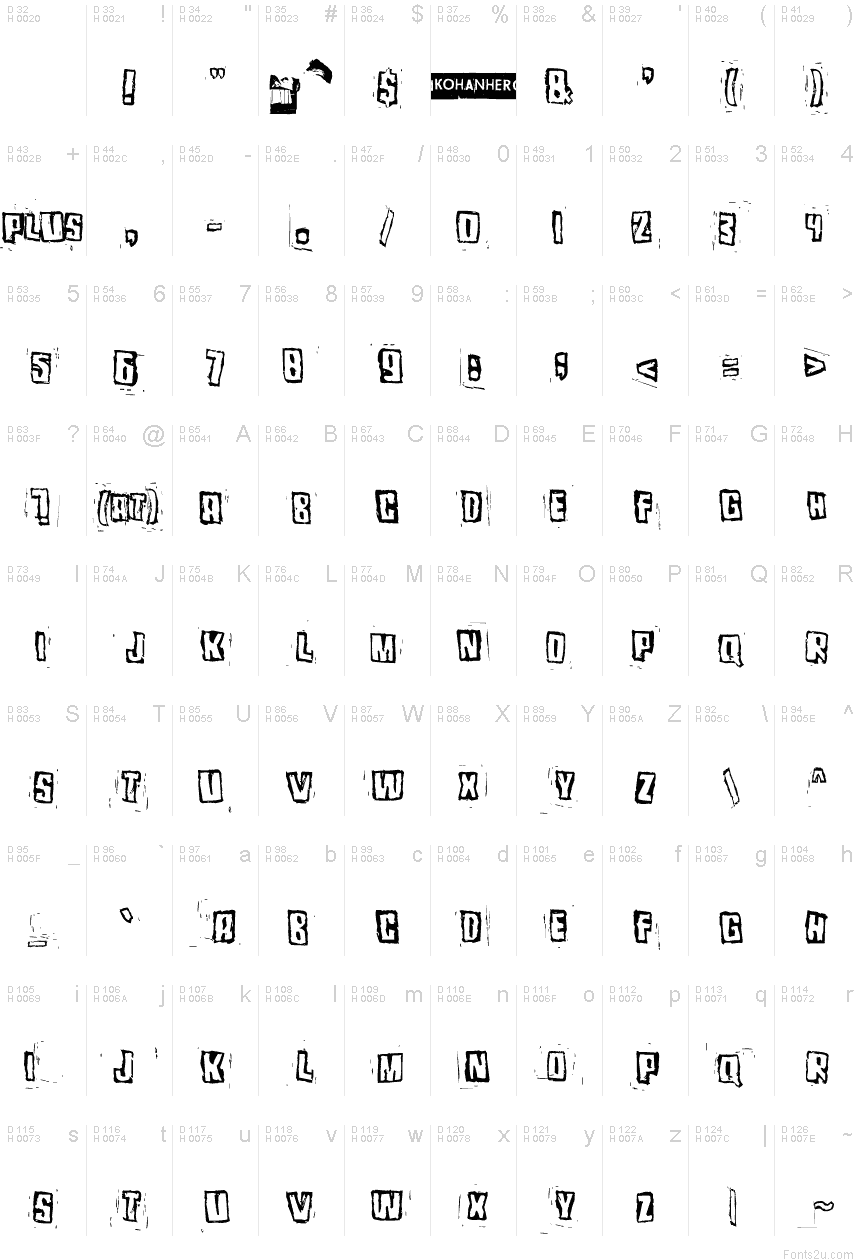
Pozothree by junkohanhero is a free graffiti display font built from chunky, uneven capitals. The letters have blunt rectangular frames, pinched inner spaces, and scraped edges that recall marker lettering cut into rough stencils. Small nicks and stray strokes deepen the handmade, unruly finish.
Street art and underground music are its clearest territory, especially when a design needs lettering with the force of a pasted-up tag. It could shape a poster headline, a skateboard graphic, or game branding aimed at an abrasive urban setting. The battered outlines can also echo torn paper, spray marks, and distressed illustration in album artwork or youth-focused merchandise.
Presentazione e campione visivo del carattere Pozothree
Mappa dei caratteri di Pozothree
Mappa dei caratteri di Pozothree: Latino di base, pagina 1
Glifi del carattere Pozothree — Latino di base, pagina 1